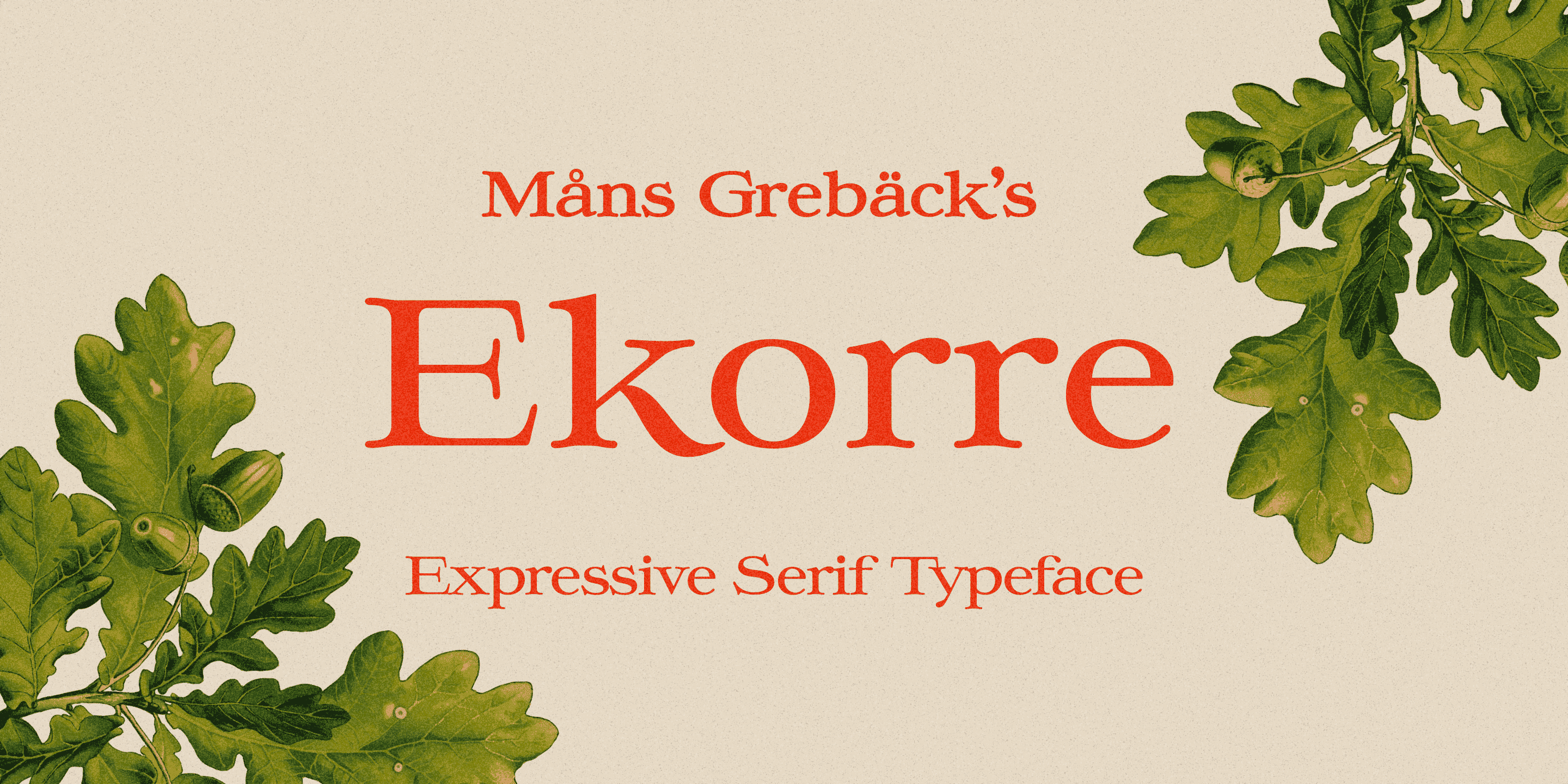
This nature-inspired typeface is perfect for wildlife conservation organizations, outdoor adventure companies, forest ranger services, nature documentaries, eco-friendly brands, children's nature books, camping equipment retailers, national park signage, environmental awareness campaigns, organic food packaging, woodland-themed restaurants, and sustainable lifestyle brands. The font's natural design makes it ideal for projects that celebrate wildlife, environmental protection, and the beauty of forest ecosystems.
Ekorre Font is exciting because it captures the playful agility and natural charm of woodland creatures through its organic letterforms and nature-inspired character structure. The font's nimble curves and forest-like proportions create an atmosphere of environmental harmony and natural wonder, making it perfect for brands that want to convey sustainability, adventure, and connection with nature. Its friendly appearance ensures instant appeal while maintaining excellent readability across various outdoor applications.
The Ekorre Font family includes multiple woodland variations: Light Sapling, Regular Branch, Medium Tree, Bold Forest, and Black Canopy weights, each available in standard and rustic versions. Special nature editions feature organic alternates, leaf-inspired ornaments, and woodland symbols that enhance the font's environmental appeal, providing designers with comprehensive tools for creating authentic nature-focused communications.